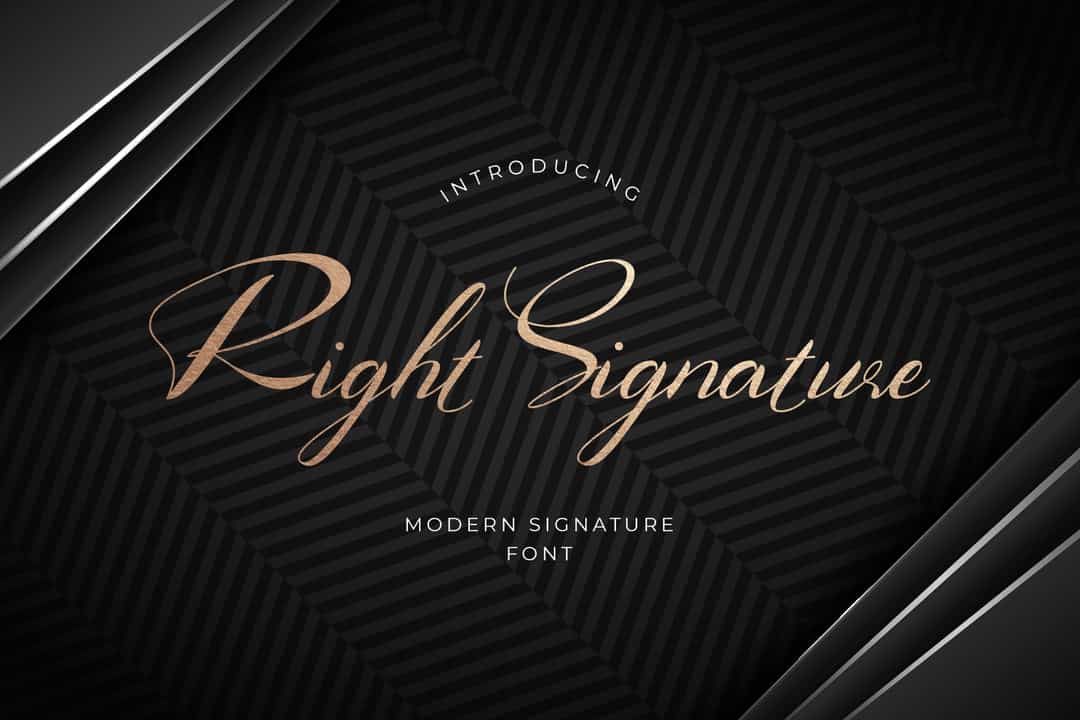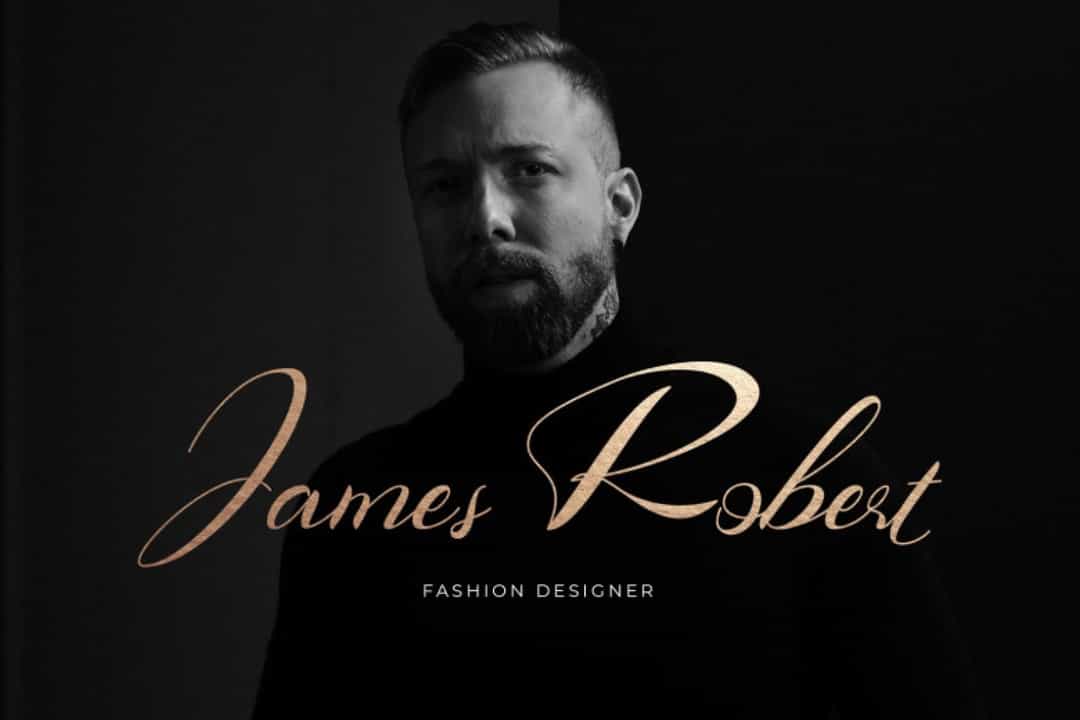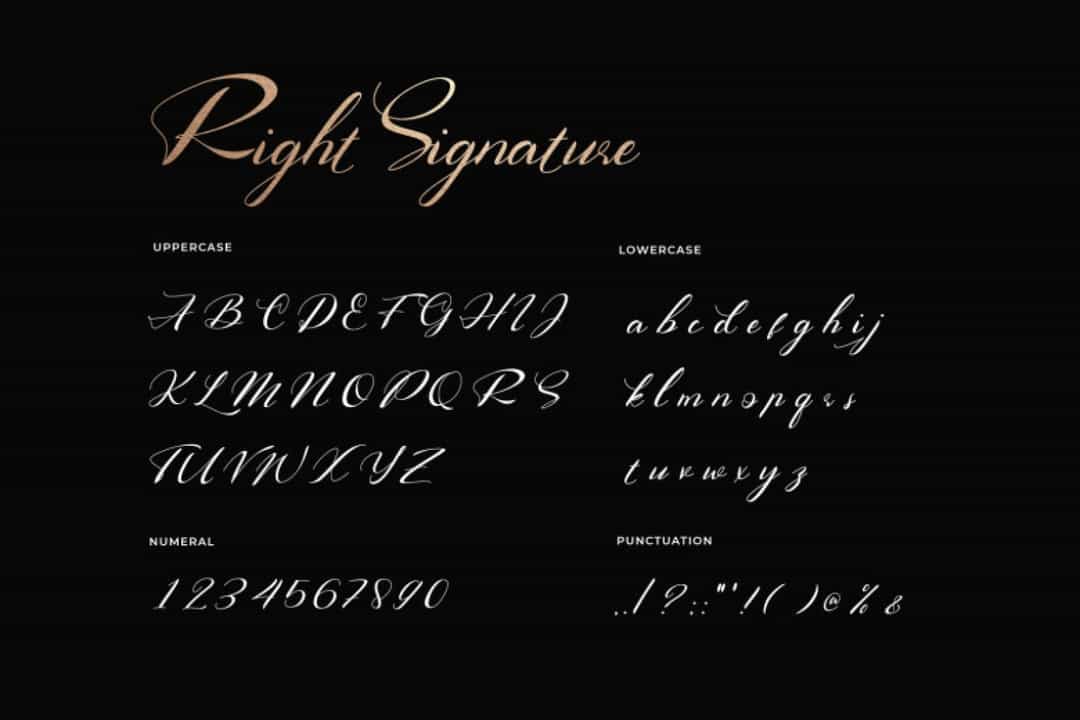
Right Signature is a font that is stylistic and includes both a proper script font and a more elegant serif font with certain characteristics such as the use of the capital letter at the beginning of writing to give the text a definite appeal after which follows the small letters that flow along in curves and finally end in long straight lines to make a good impression. Also, this font set is well built to give you a ease while titling or swashing.